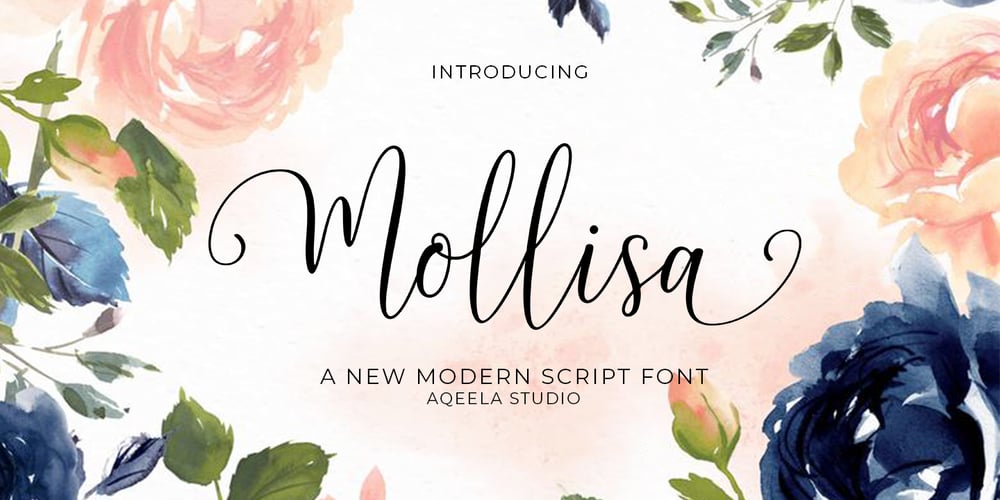
Mollisa
Mollisa font
Mollisa Font Family was designed by Muhammad Nasir and published by Aqeela Studio. Mollisa contains 1 styles and family package options. Mollisa felt equally charming and graceful. Looks great on wedding invitations, thank you cards, quotes, greeting cards, logos, branding, business cards, and any other design that requires a handwritten touch.This font is PUA encoded which means you can access all glyphs and swashes with ease!To activate the Stylistic OpenType alternative, you need a program that supports OpenType features such as Adobe Illustrator CS, Adobe Indesign & CorelDraw X6-X7, Microsoft Word 2010 or later. and there is an additional way to swash, using the Character Map (Windows), Nexus Fonts (Windows), Font Book (Mac) or a software program like PopChar (for Windows and Mac).https://www.youtube.com/watch?v=XzwjMkbB-wQThank you for your purchase!